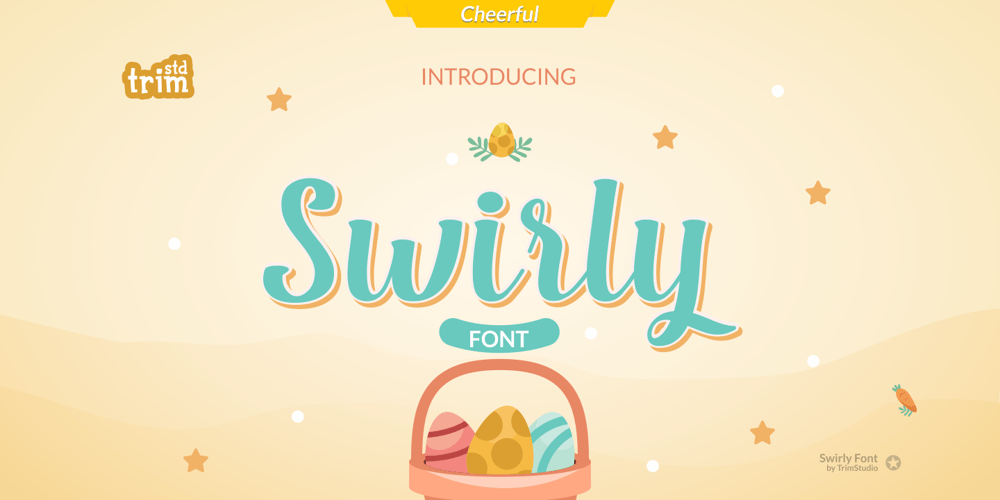
Swirly
Swirly font
Swirly Font Family was designed by Deri Kurnia and published by Trim Studio. Swirly contains 1 styles and family package options. Swirly is a cute handwritten font to share happy, loving, and cheerful vibes and moments in life like Easter, Valentine, Christmas, and for many other occasions.